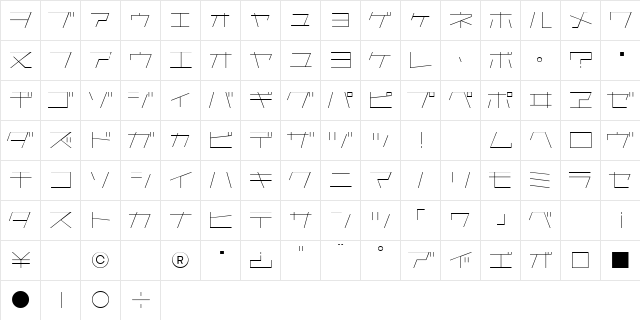
AstraKfsb07LightO Regular
Design Context for AstraKfsb07LightO Typeface
AstraKfsb07LightO takes a measured approach to typography — its balanced proportions and neutral character make it a reliable workhorse for both digital and print work. Its slender proportions lend an understated elegance to any composition.